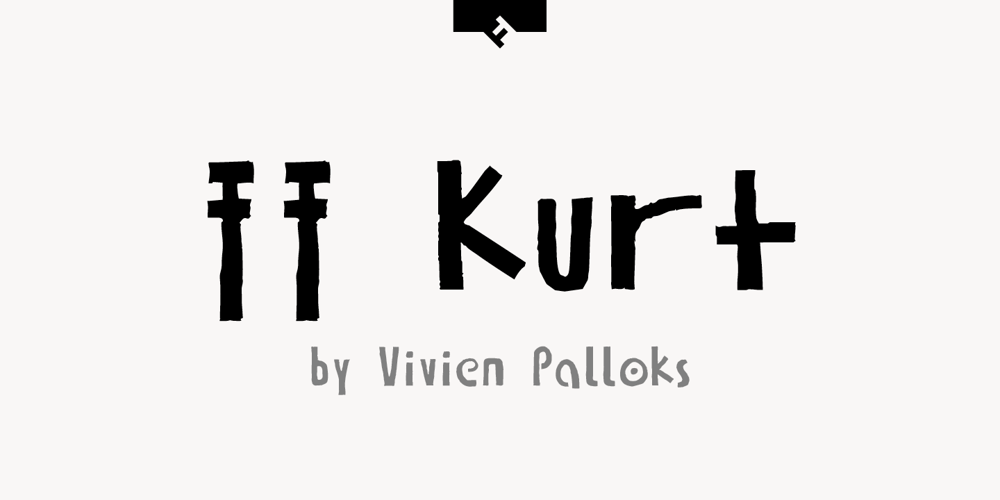
FF Kurt Font Family was designed by Vivien Palloks and published by FontFont. FF Kurt contains 3 styles and family package options. German type designer Vivien Palloks created this display FontFont in 1998. The family contains 3 weights: Light, Regular, and Bold and is ideally suited for festive occasions. FF Kurt provides advanced typographical support with features such as ligatures and case-sensitive forms. It comes with proportional oldstyle figures.